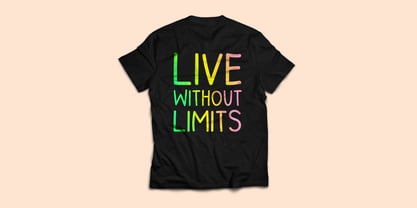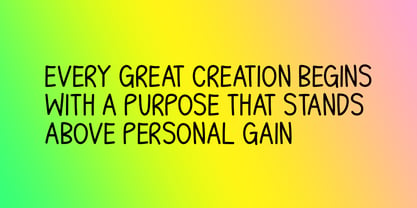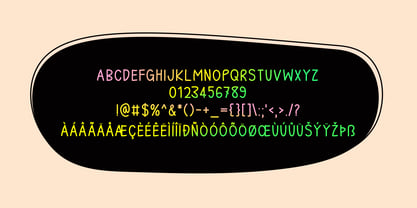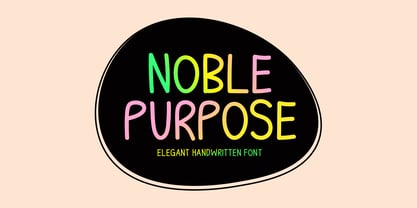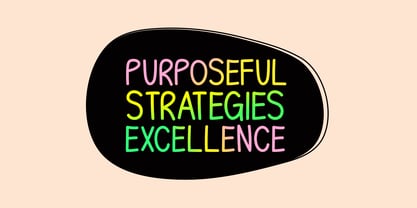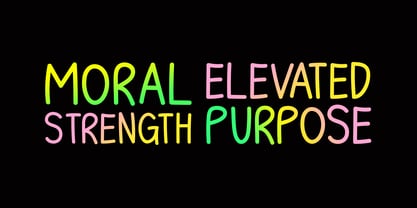
Noble Purpose
by Seemly Fonts
The Noble Purpose Font Family was designed by Md. Sohail Bhuiyan and published by Seemly Fonts. Noble Purpose contains 1 styles. More about this family
Noble Purpose is an elegant handwritten font crafted with smooth strokes and a refined, natural flow. Its graceful appearance makes it a perfect choice for stationery, logos, t-shirts, posters, flyers, website headers, and print materials. Whether used for branding, invitations, or creative digital projects, Noble Purpose adds a touch of sophistication and warmth to every design.
Designers: Md. Sohail Bhuiyan
Foundry: Seemly Fonts